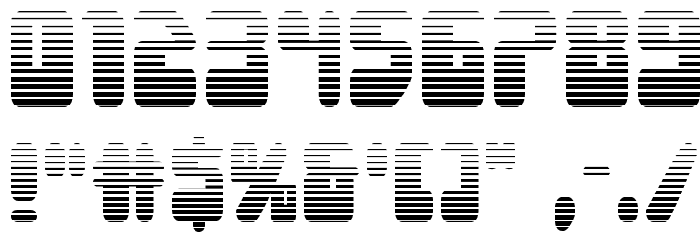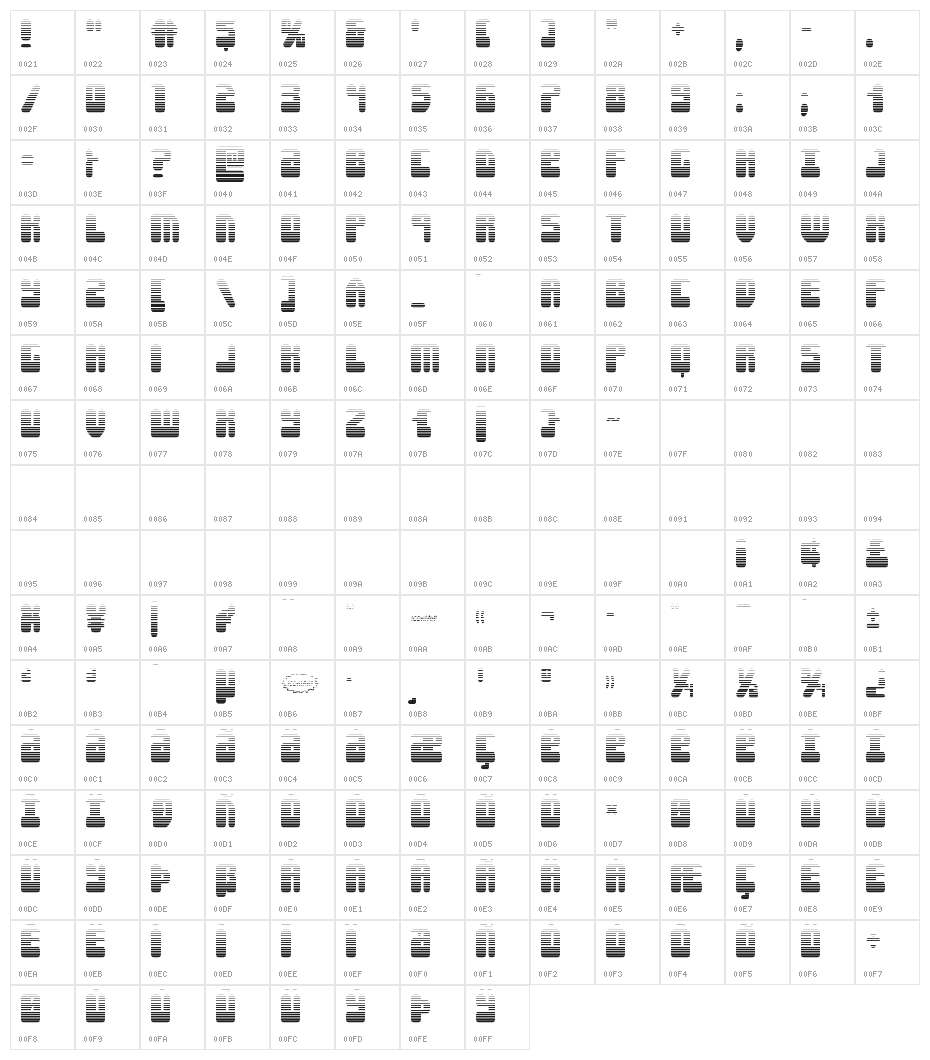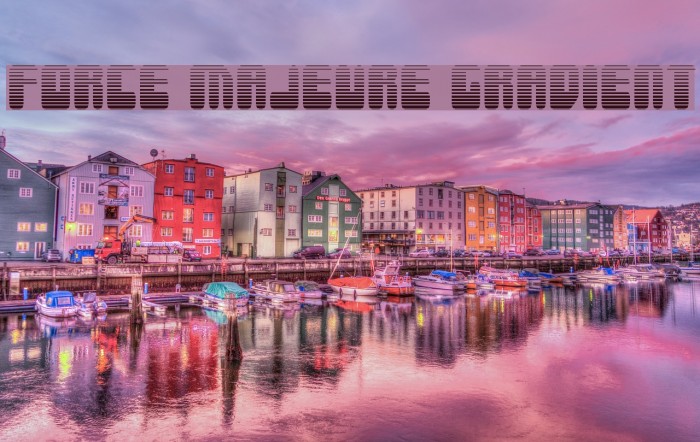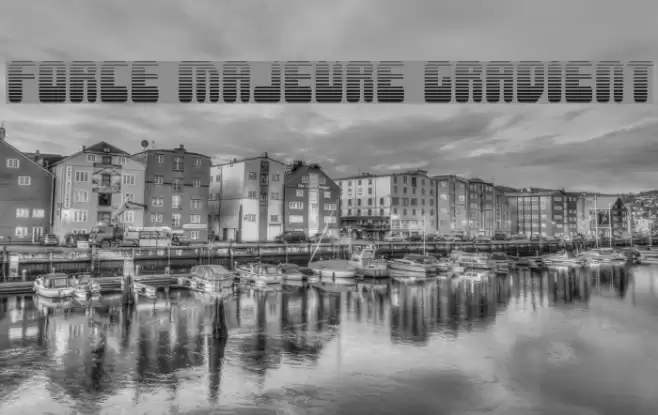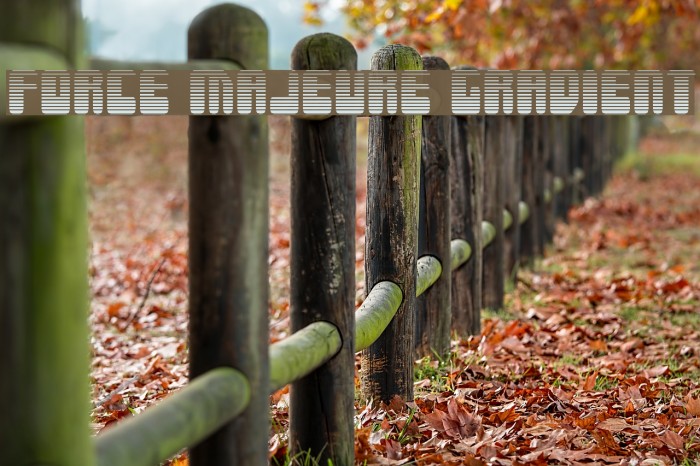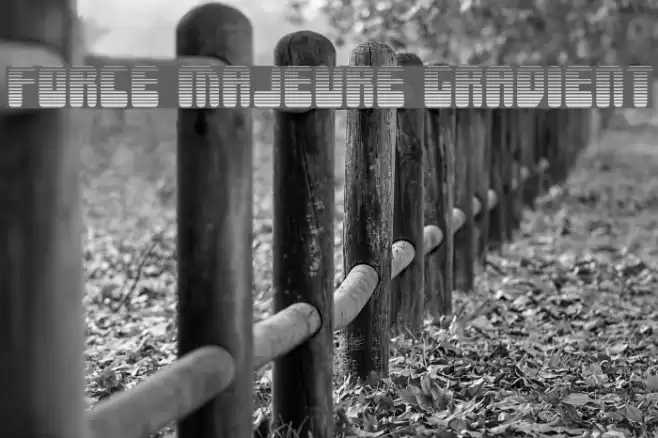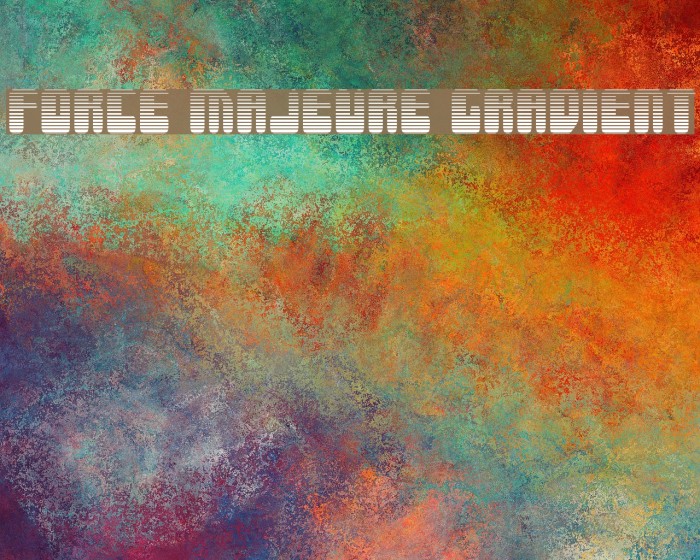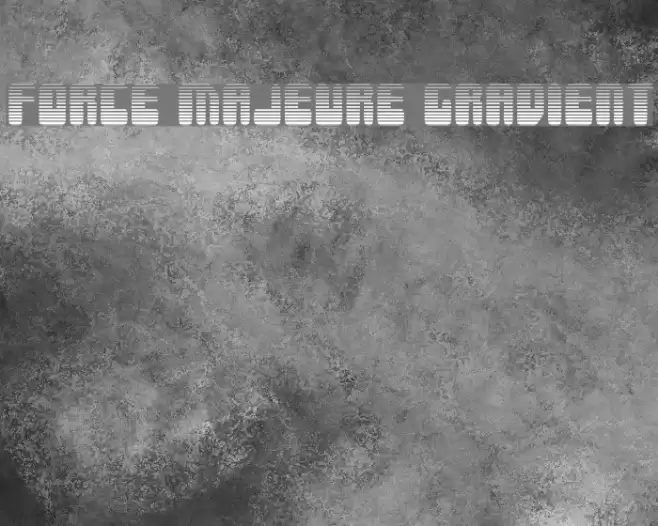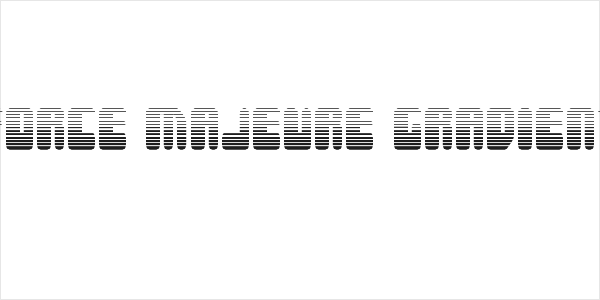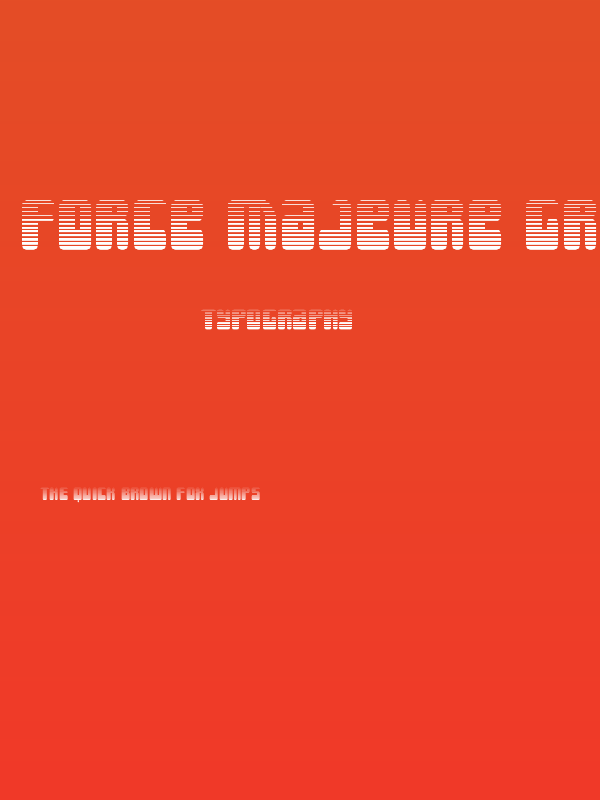
Force Majeure Gradient Font
Force Majeure Gradient Description
This font features a bold, modern design with a unique gradient effect that gives each character a dynamic, layered appearance. The letters are constructed with horizontal lines that create a sense of depth and movement, making it stand out in any design. The uppercase and lowercase letters maintain a consistent style, with rounded edges and a geometric structure. The numbers and special characters are equally distinctive, following the same gradient pattern. This font is ideal for projects that require a futuristic or tech-inspired aesthetic.
| Proposed Projects | Ideal for tech branding, futuristic posters, digital media, and innovative product packaging. |